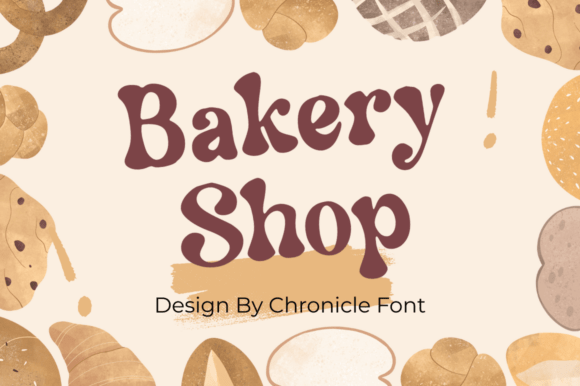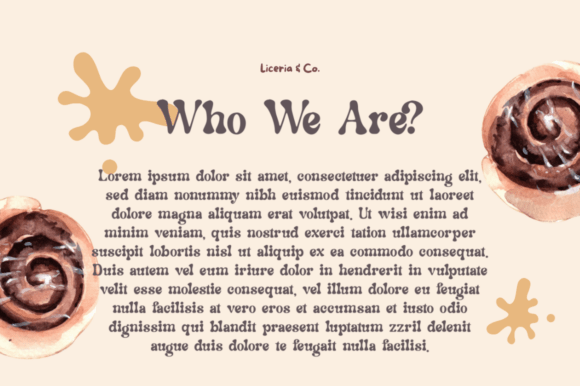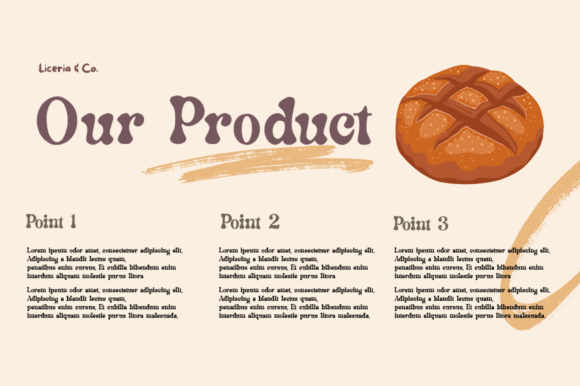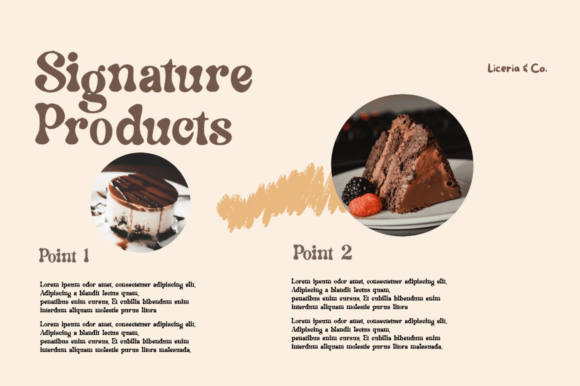
Bakery Shop Font Font
About the Bakery Shop Font Font
From logos to headlines, the Bakery Shop Font Font is the perfect choice for making a lasting impression. Chronicle Note is a charming display font with a vintage twist and playful personality. Its bold curves and whimsical shapes make it perfect for eye-catching headlines, retro branding, book covers, creative posters, and more. Whether you’re designing for print or digital, Chronicle Note brings a nostalgic yet fresh flair to your work.
Bakery Shop Font Font Usage Examples
Bakery Shop Font Font Example